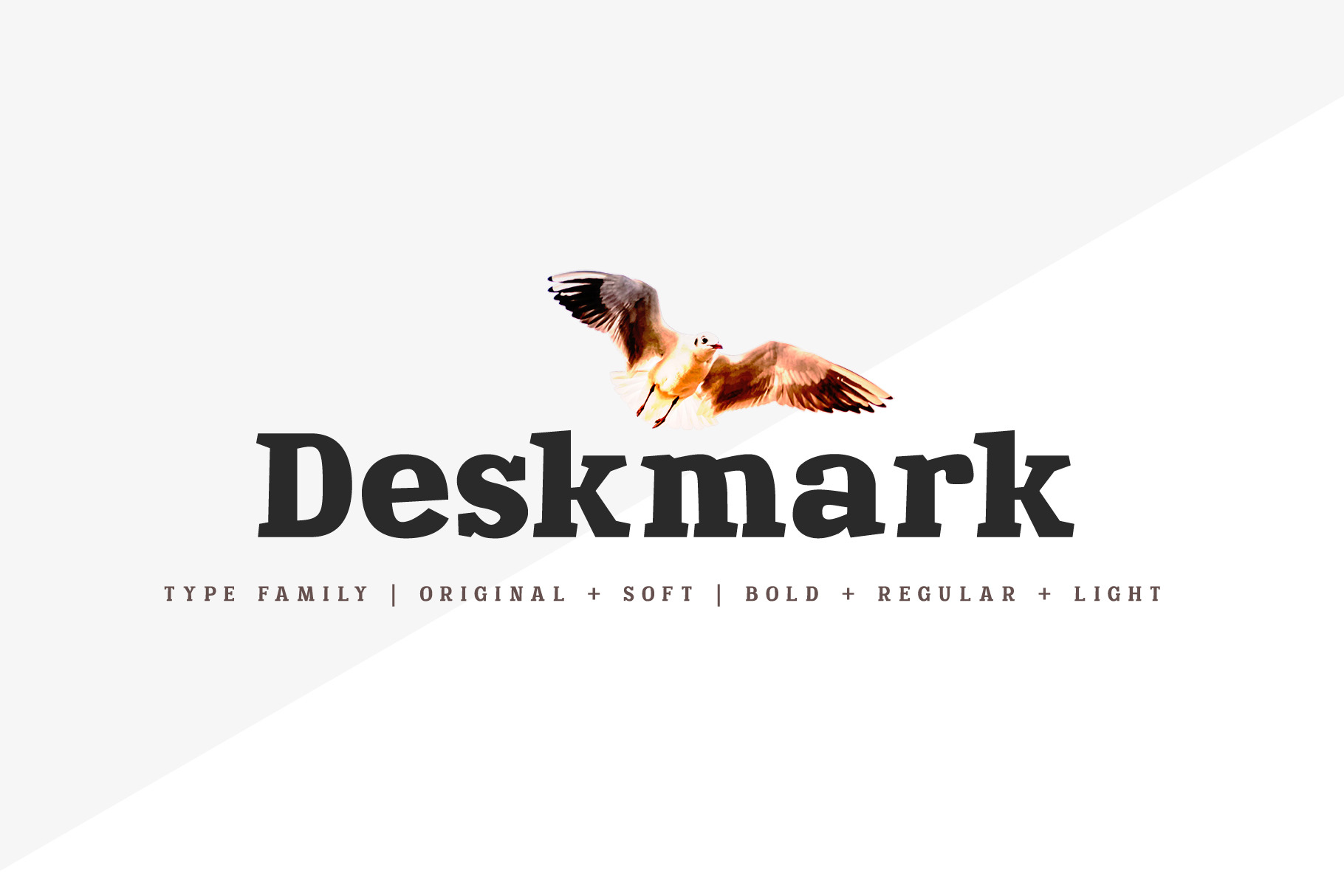
Deskmark Slab Pro Typefamily
Hi! Introducing Deskmark Slab Pro Typefamily. Original and soft version. 3 weight for each version, bold, regular and light. Language support: Contains full set of Latin alphabet, including diacritical marks for European languages and Cyrillic alphabets.